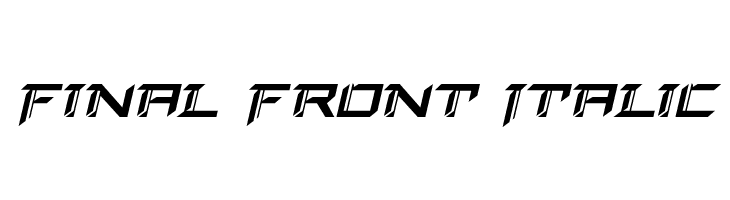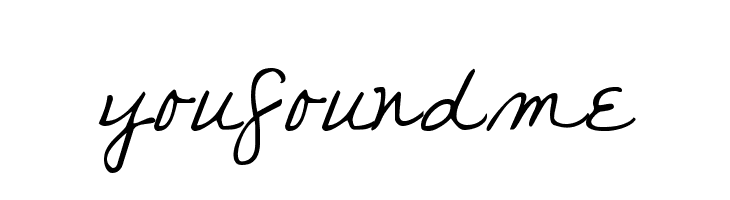
A flowing, cursive script font with elegant loops and swashes.
A bold, playful font with a unique outlined, three-dimensional style.
A playful, handwritten-style font with bold, dynamic characters.
A bold, playful font with a spooky, dripping effect ideal for horror themes.
A bold, angular, and futuristic font with a slanted design.
A playful, handwritten font with tall, narrow letters and smooth strokes.
A cursive, handwritten font with elegant, flowing strokes.
A bold, hexagonal, condensed italic font with high contrast and geometric style.
A bold, expressive handwritten font with playful curves and a friendly vibe.
A decorative font with intricate maze-like patterns within each character.
设计师偏爱 Anissa Regular, Astakhov Access Degree Serif SF, de Solidia, VTC Night Of The Oozie DeadCaps and Alpha Century Rotalic,因为其造型干净、适用范围广—— 从品牌识别到落地页、海报都能胜任。